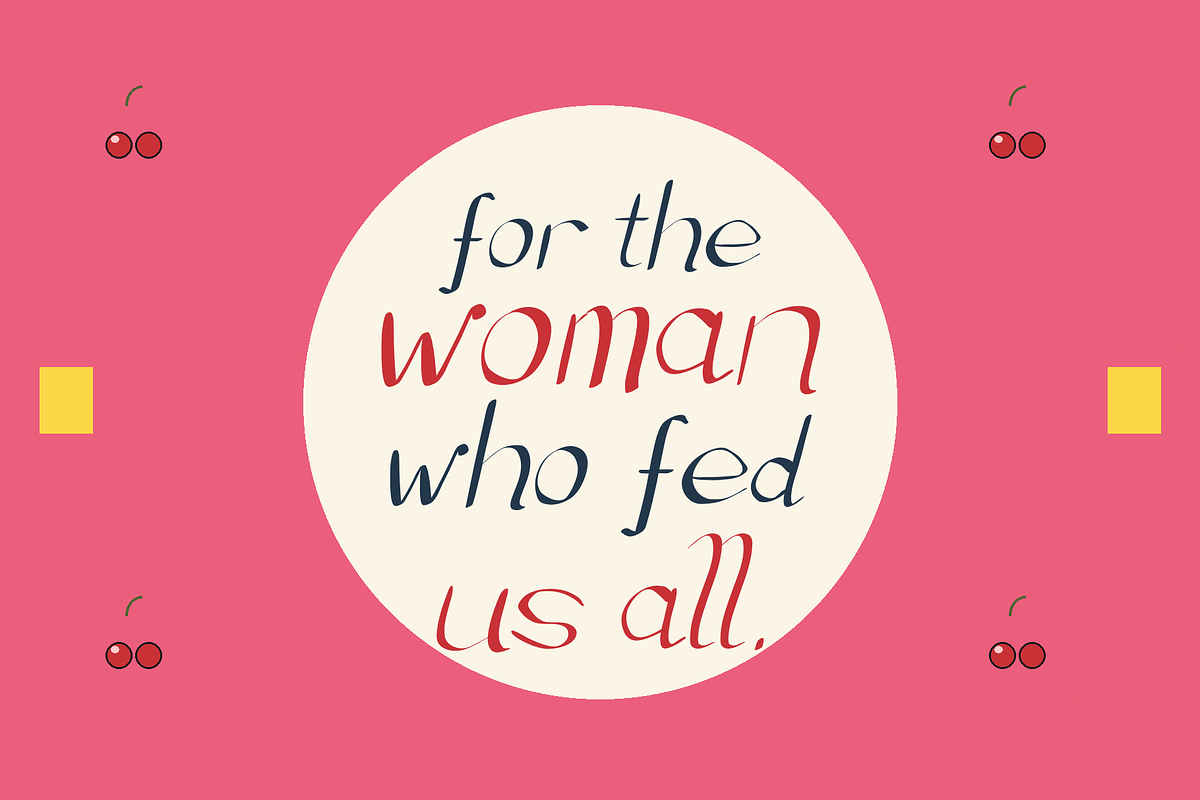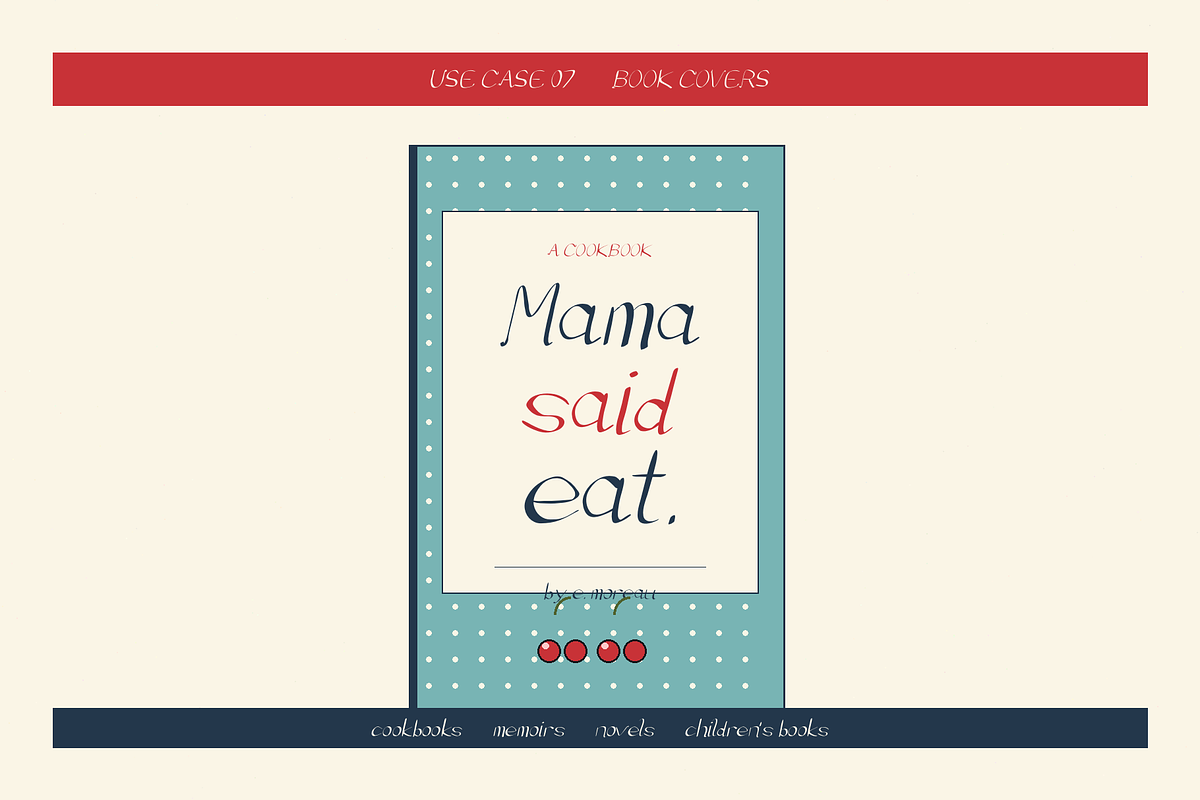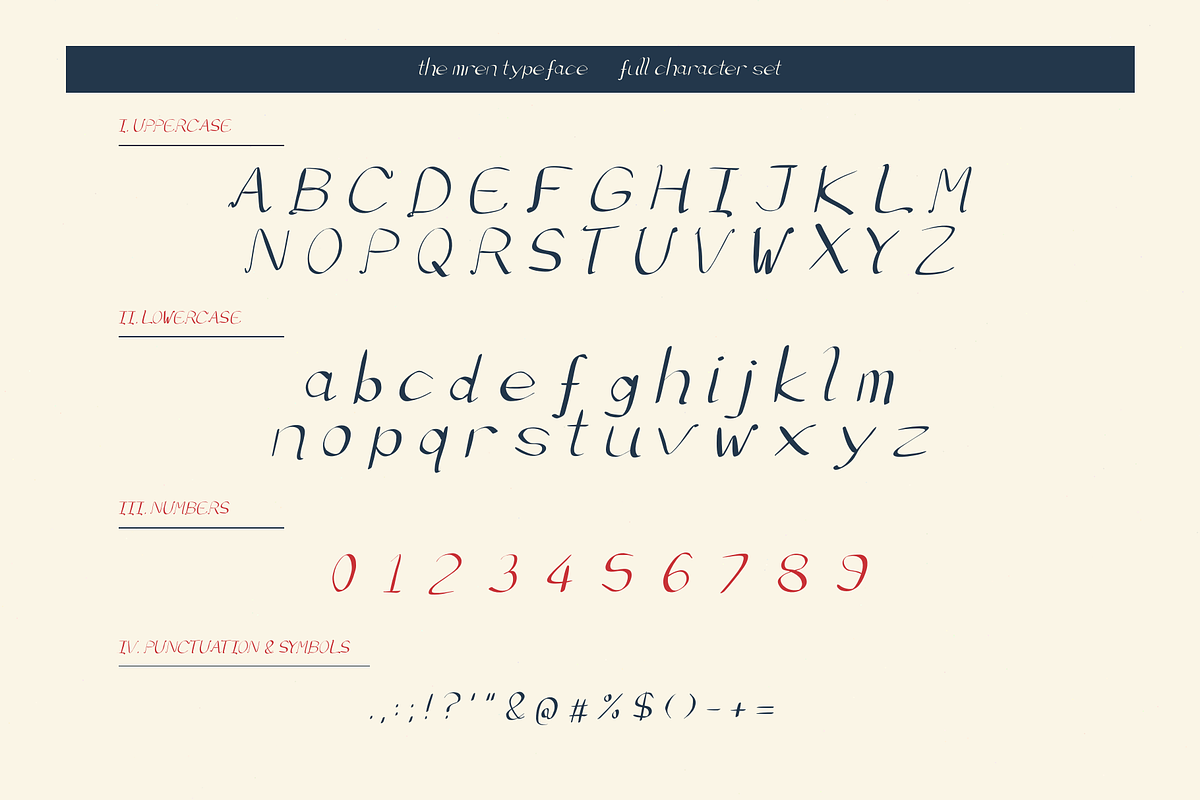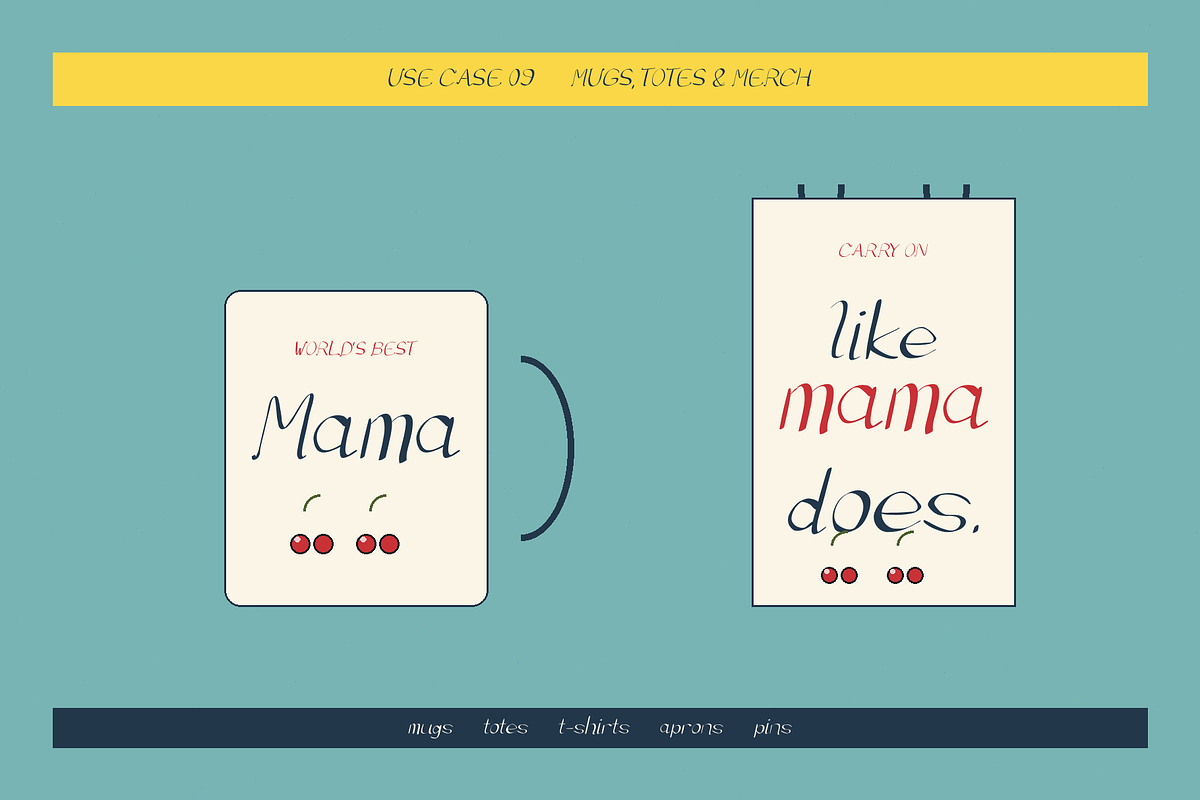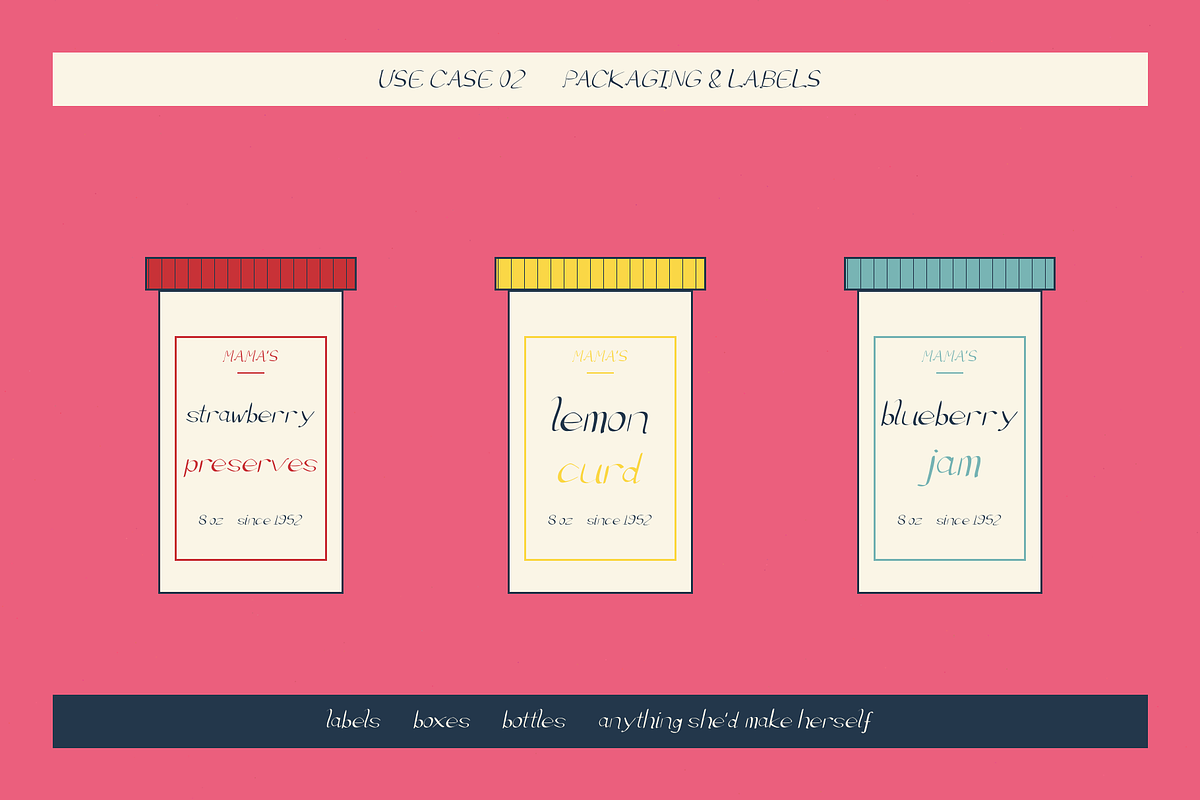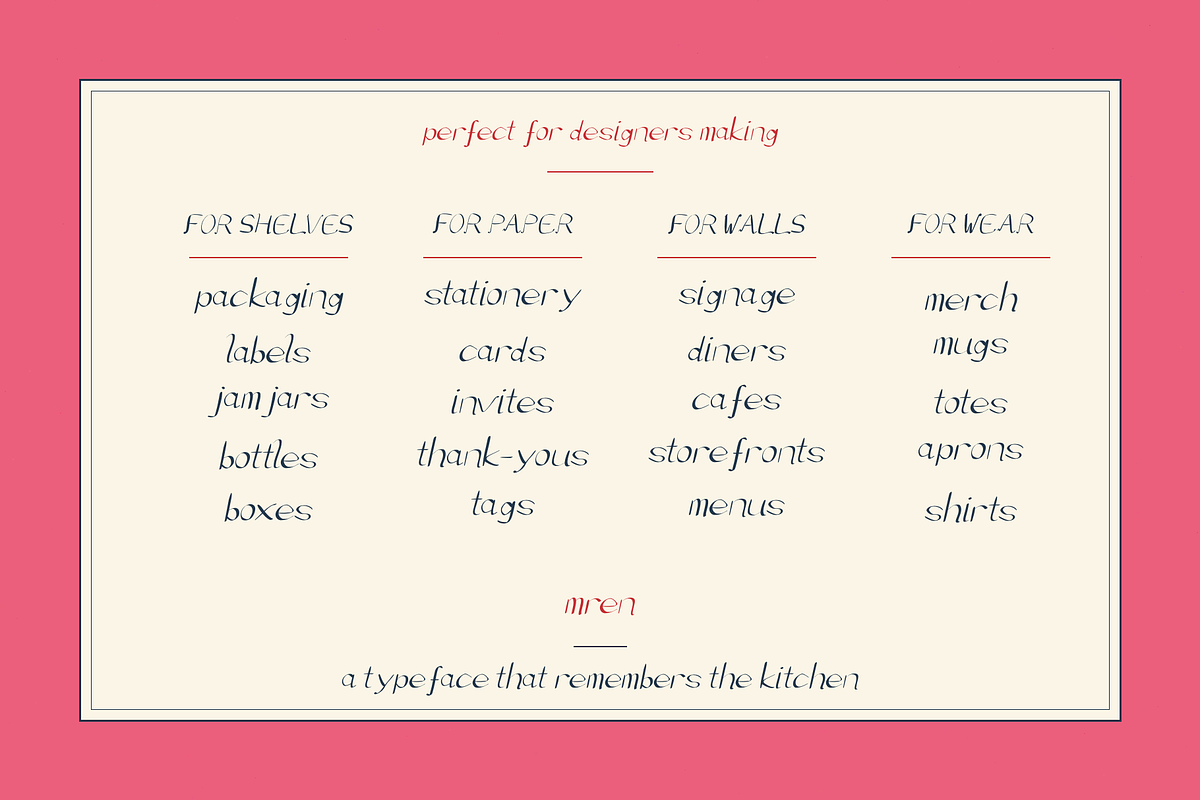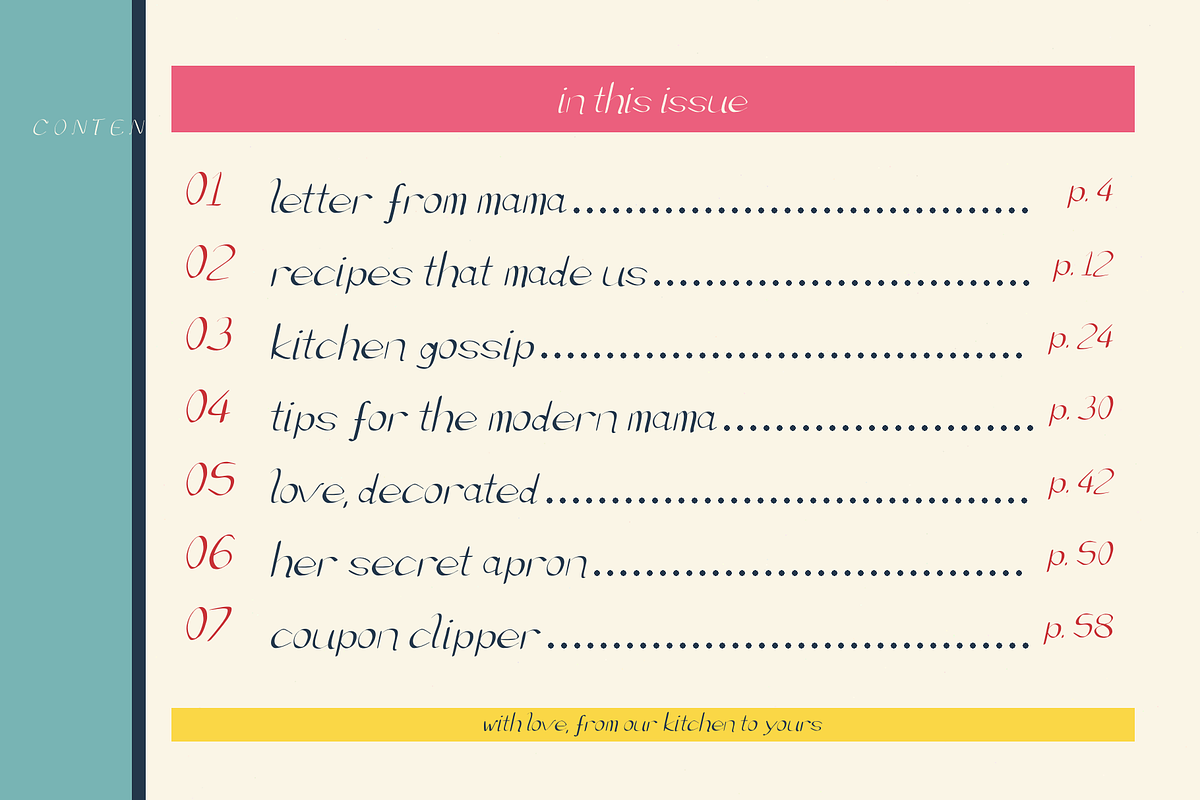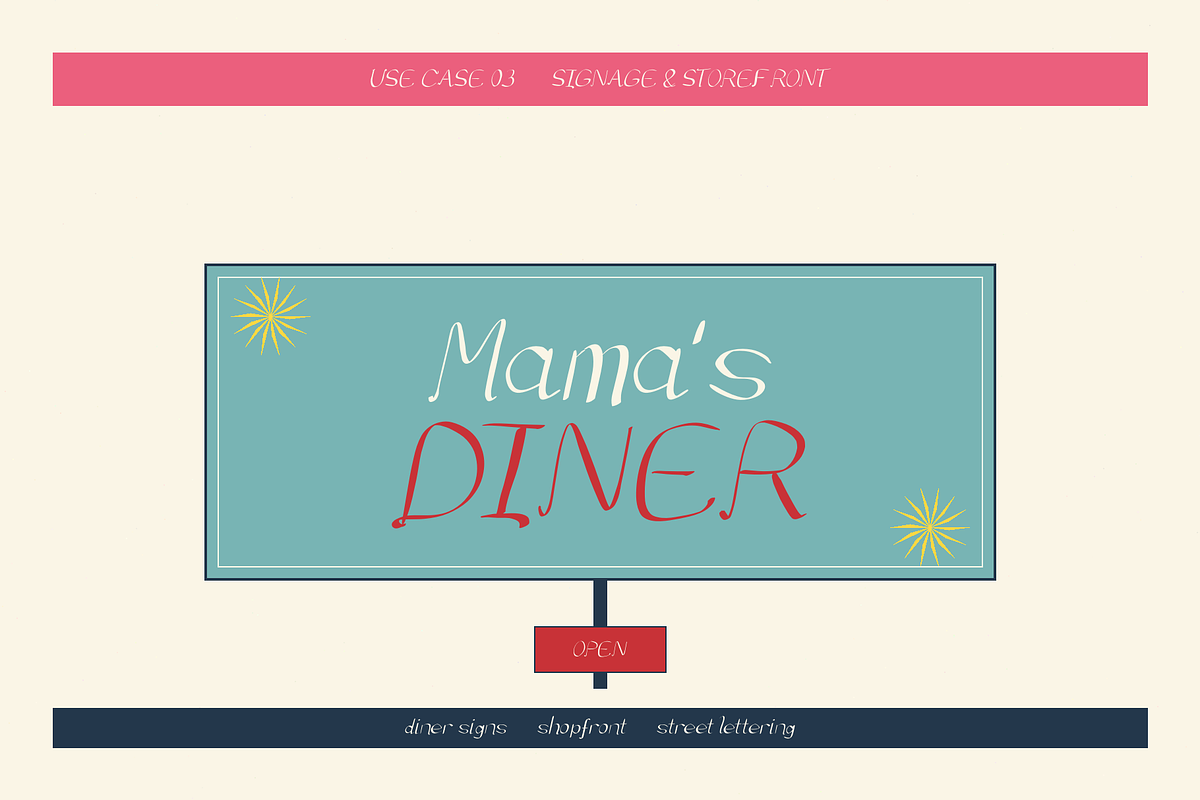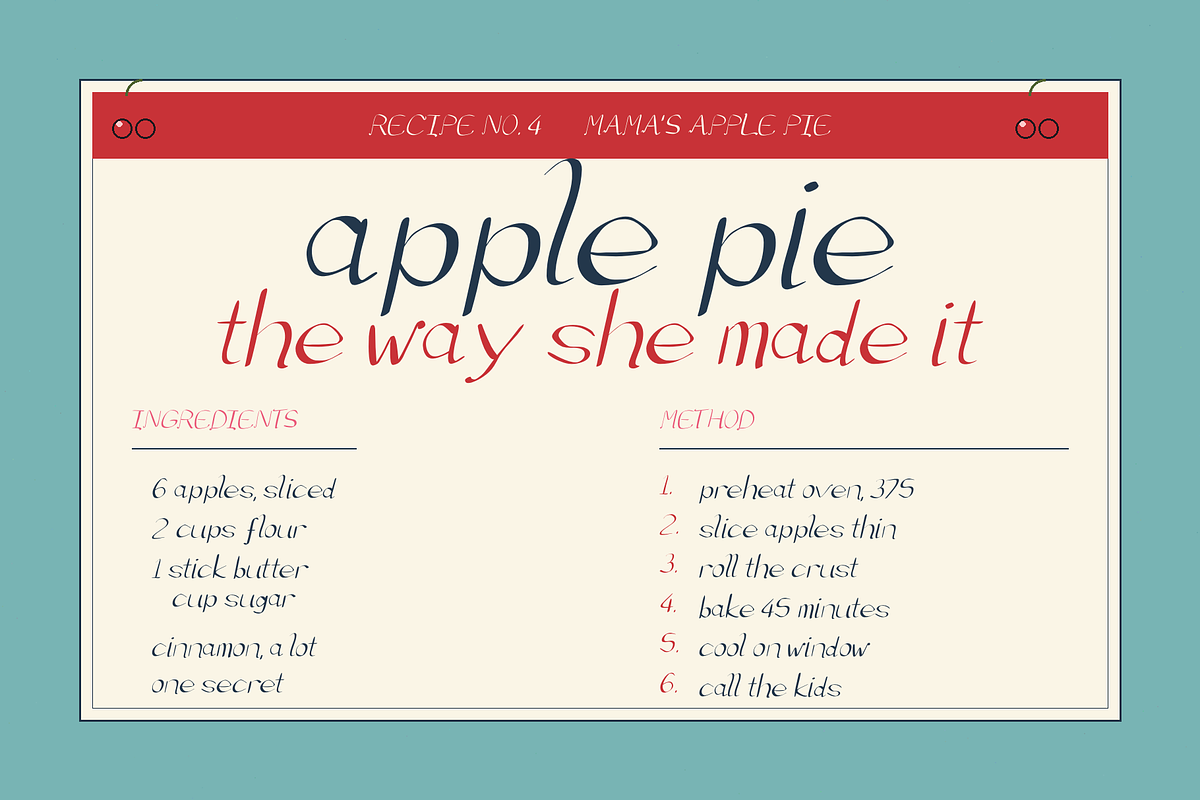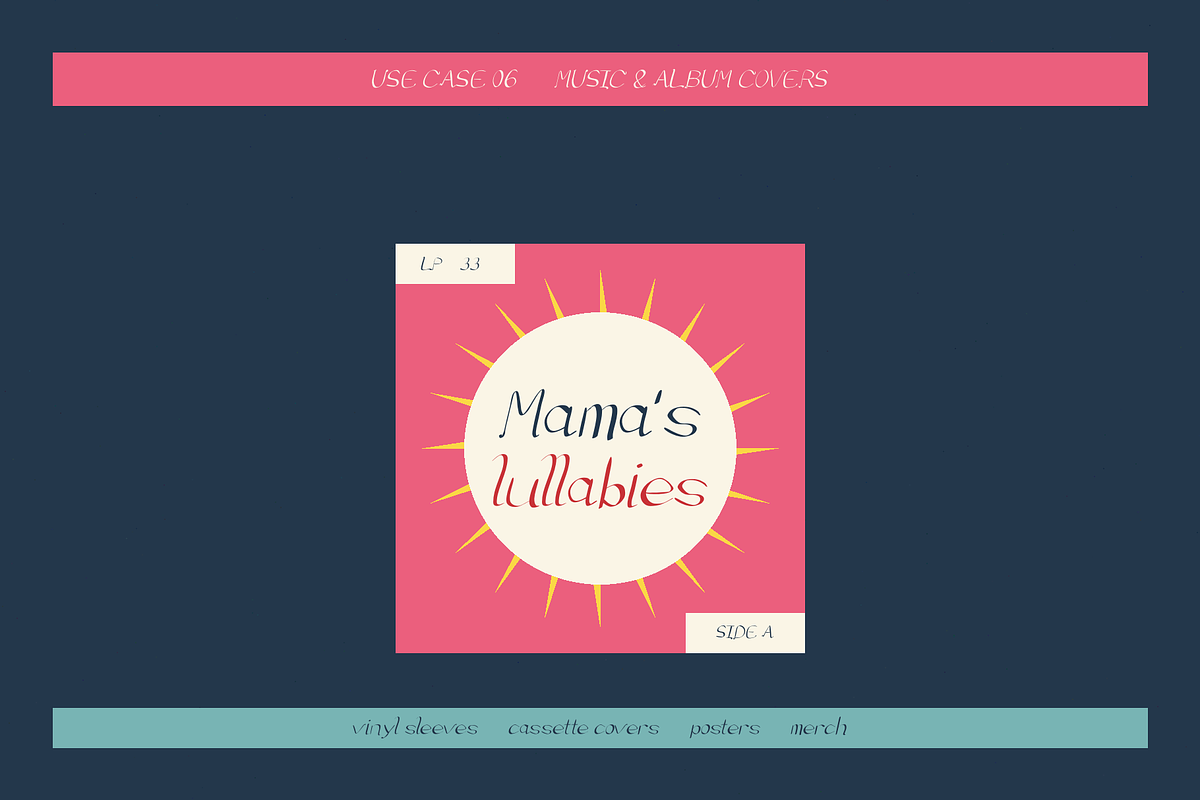
Mren — Elegant Italic Script
Mren — Elegant Italic Script · Mother's Day Edition
Meet Mren — an elegant italic script that feels like a handwritten note tucked inside a cookbook. Every letter leans forward just enough to whisper, with thick-to-thin contrast that gives each word warmth and personality. Mren was designed for the kind of projects that should feel personal — Mother's Day cards, kitchen labels, cafe signage, recipe books, and gift packaging. It's the font you reach for when clean doesn't mean cold, and stylish doesn't mean stiff.
✨ WHY DESIGNERS PICK MREN
- Instantly warm — italic lean + calligraphic stroke = a voice, not just letters
- Reads beautifully at any size — from tiny jam jar labels to huge wall art
- Built for real products — tested on cards, packaging, mugs, signage, social media, and more
- Pairs perfectly with clean sans-serifs (Helvetica, Inter, DM Sans) or bold slabs
- Full uppercase & lowercase (A–Z, a–z)
- Numerals (0–9)
- Punctuation & symbols: . , : ; ! ? ' " & @ # % $ ( ) - + = / *
- Basic accented characters for Western European languages
🎨 PERFECT FOR
- Mother's Day & Father's Day cards, tags, and gifts
- Jam jars, honey bottles, candle labels, soap wrappers
- Cafe menus, bakery signage, diner branding
- Recipe cards, cookbooks, food blogs
- Greeting cards, postcards, invitations
- Mugs, tote bags, aprons, tea towels, t-shirts
- Wedding stationery and save-the-dates
- Album covers, vinyl sleeves, posters
- Instagram posts, stories, highlights, sticker packs
- Logo marks, wordmarks, brand identity
- Book covers, memoirs, children's books
- Art prints, wall decor, nursery lettering
- Matchbooks, coasters, business cards, menus
💡 THE STORY BEHIND MREN I wanted to make a font that feels like it belongs in your mother's kitchen — the one with the checkered floor and the jar of wooden spoons. Not a polished corporate script. Something real. Something that reminds you of a handwritten recipe card, a note on the fridge, or a label on a jar of homemade jam. That feeling — warm, familiar, slightly imperfect — is what Mren is.